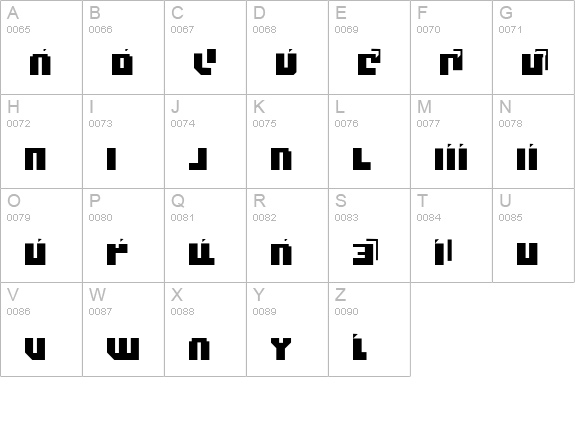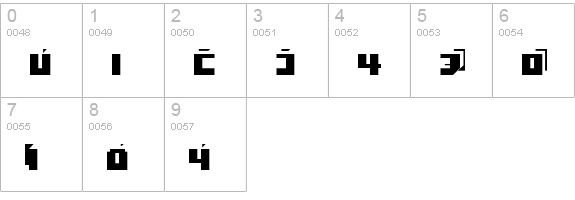
BlockedFront Font Details
BlockedFront is a modern and edgy font that exudes confidence and boldness. Its strong, blocky letterforms make a striking statement in any design project. This versatile typeface is perfect for creating eye-catching headlines, logos, posters, and more. The unique character shapes and sharp angles of BlockedFront give a contemporary and dynamic feel to any text. What makes BlockedFront even more appealing is that it is available for free download at FontsMarket.com. This means you can easily access this high-quality font and use it in your projects without any cost. Whether you're a professional designer or just starting out, BlockedFront offers a stylish and impactful option for your typography needs. Don't miss out on this fantastic opportunity to enhance your designs with the modern flair of BlockedFront.